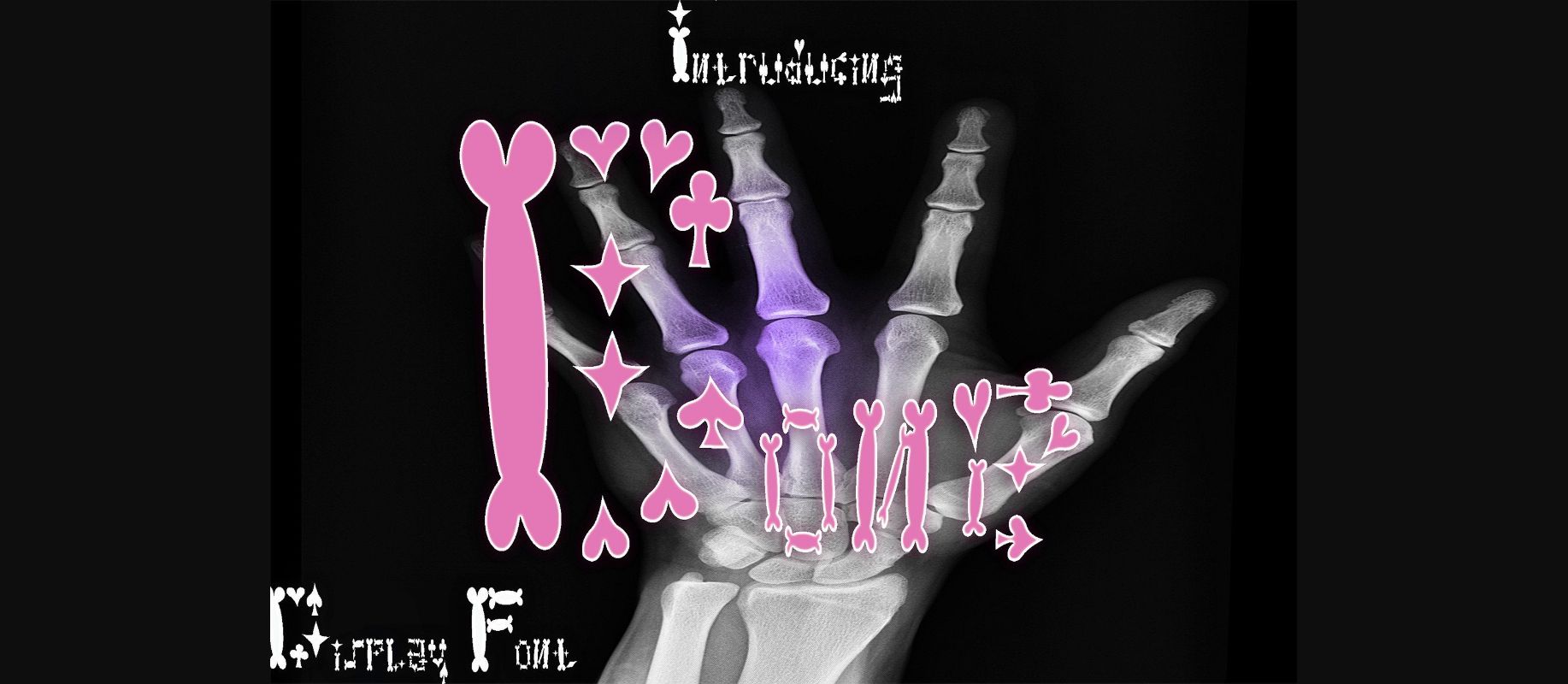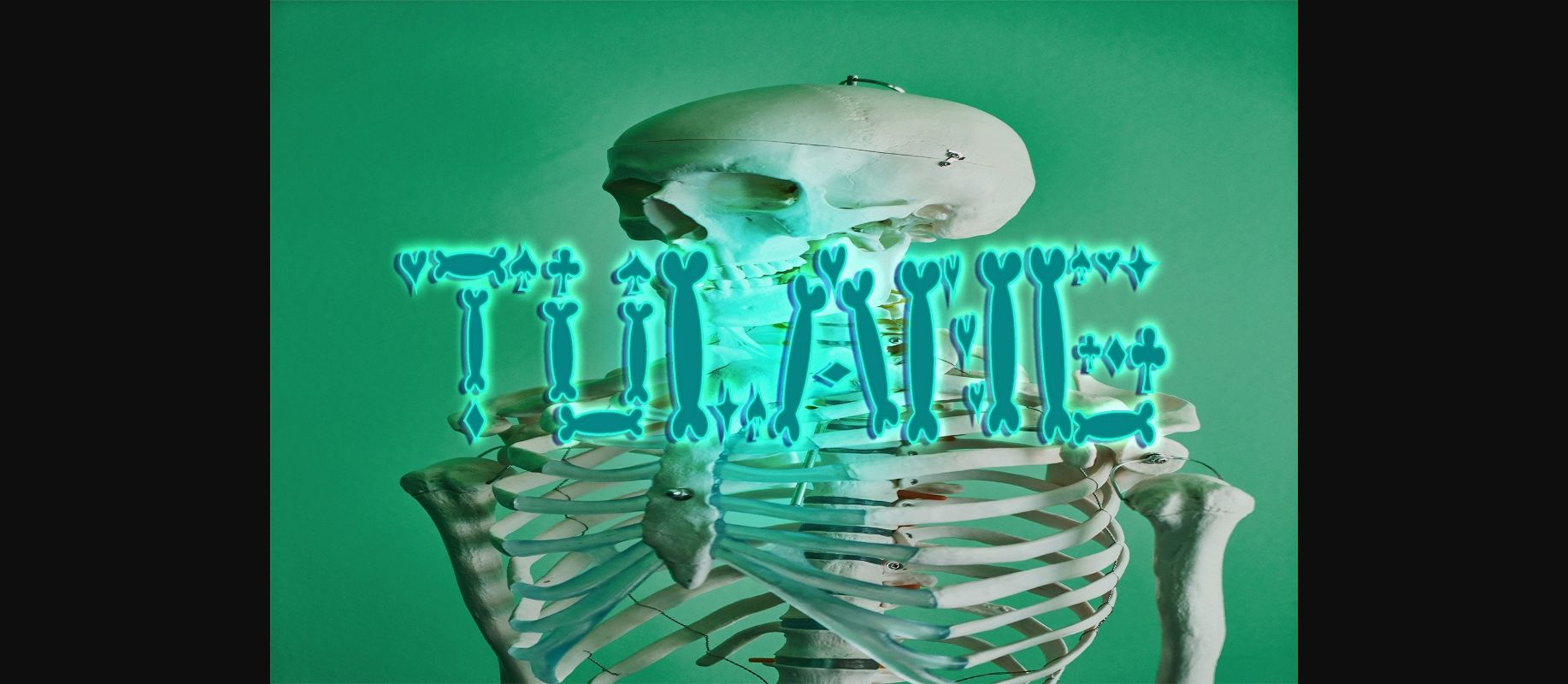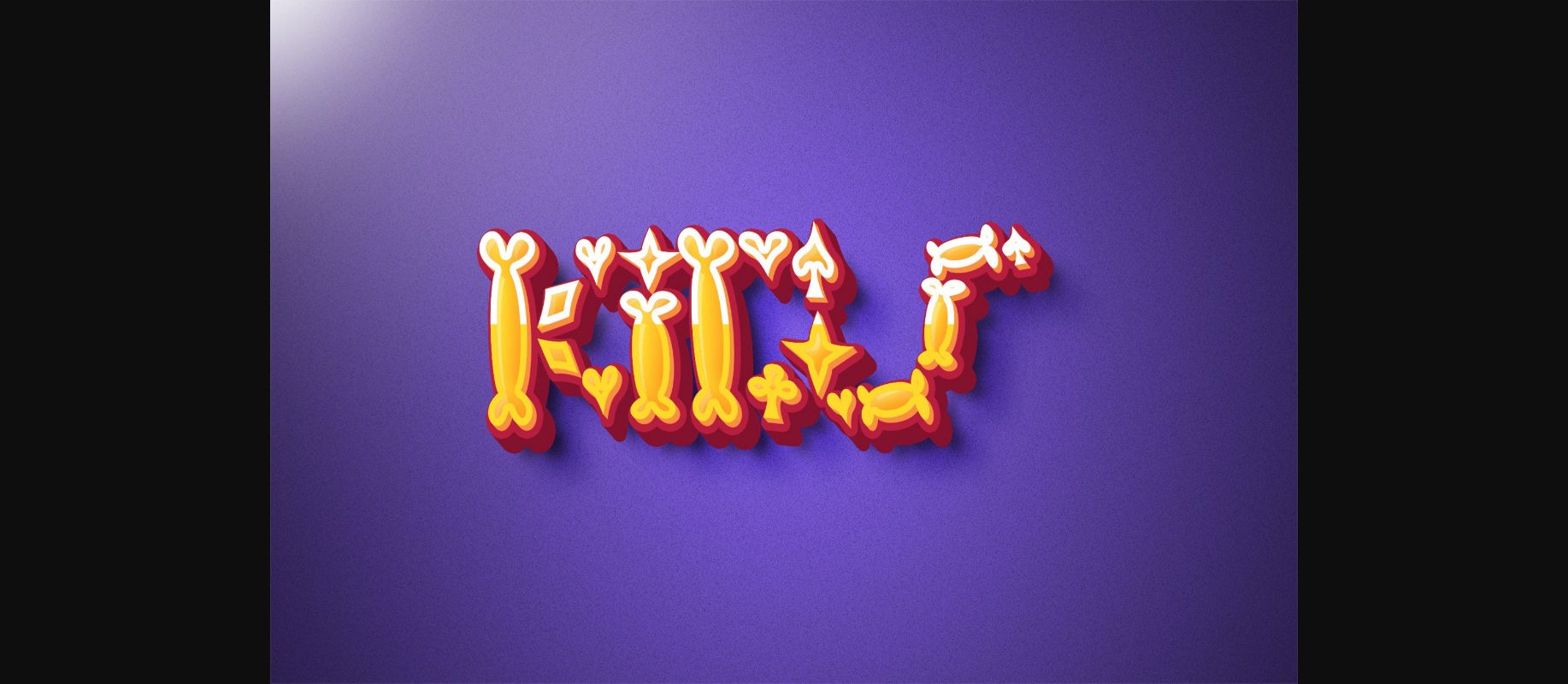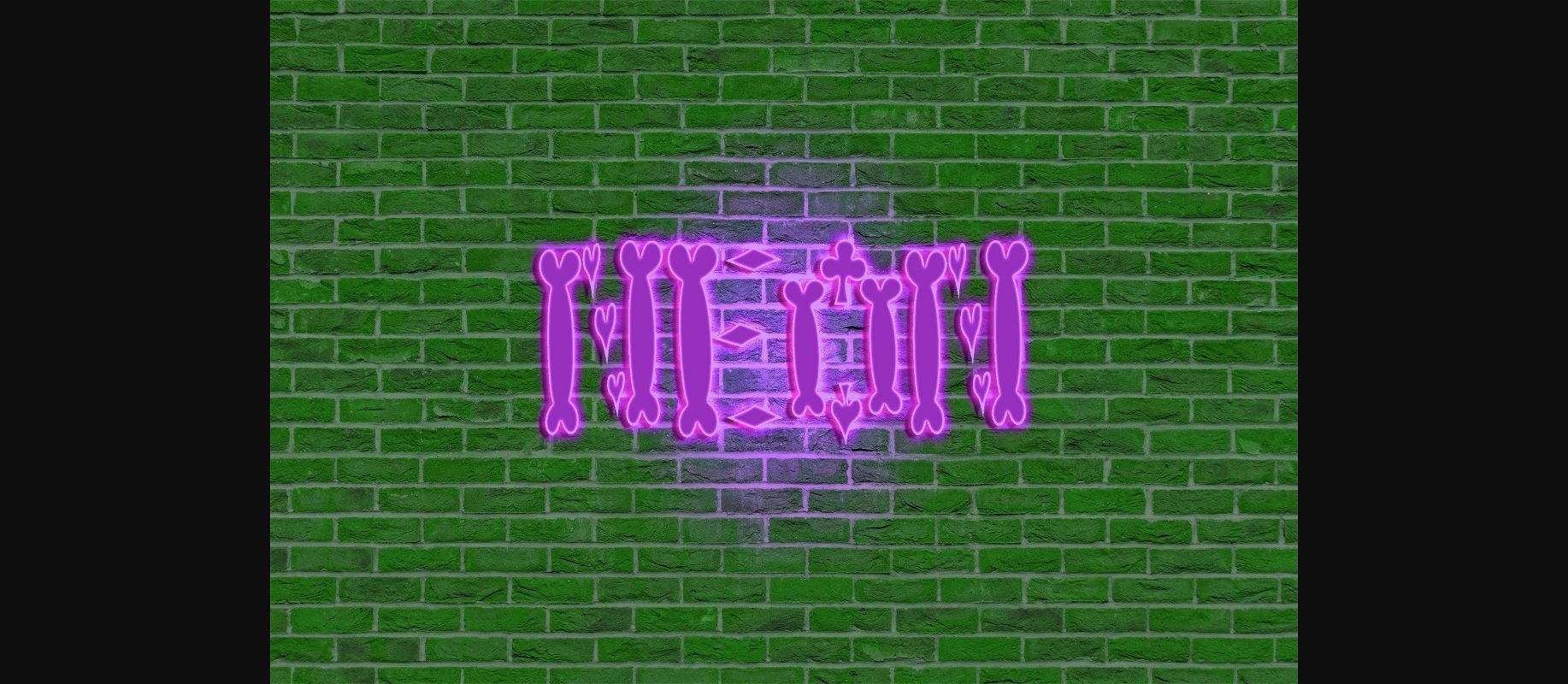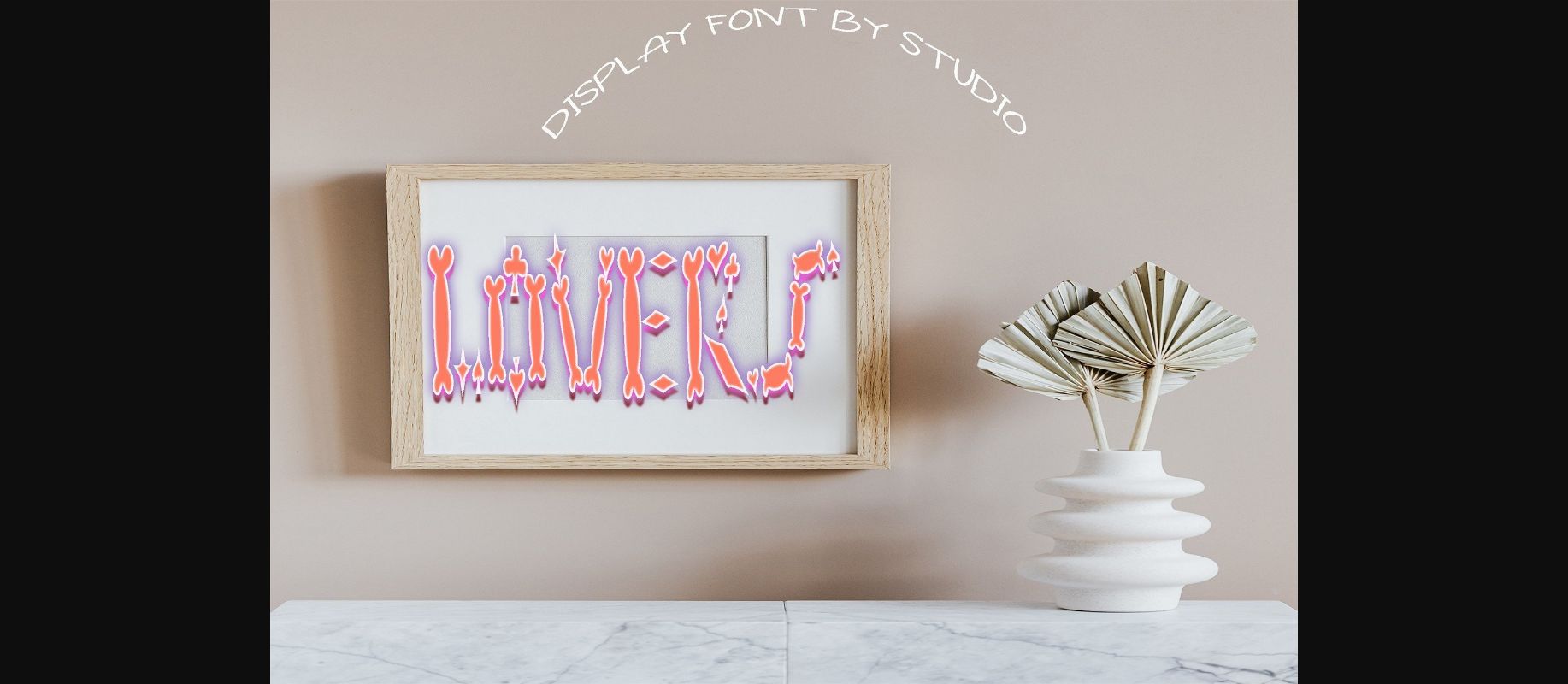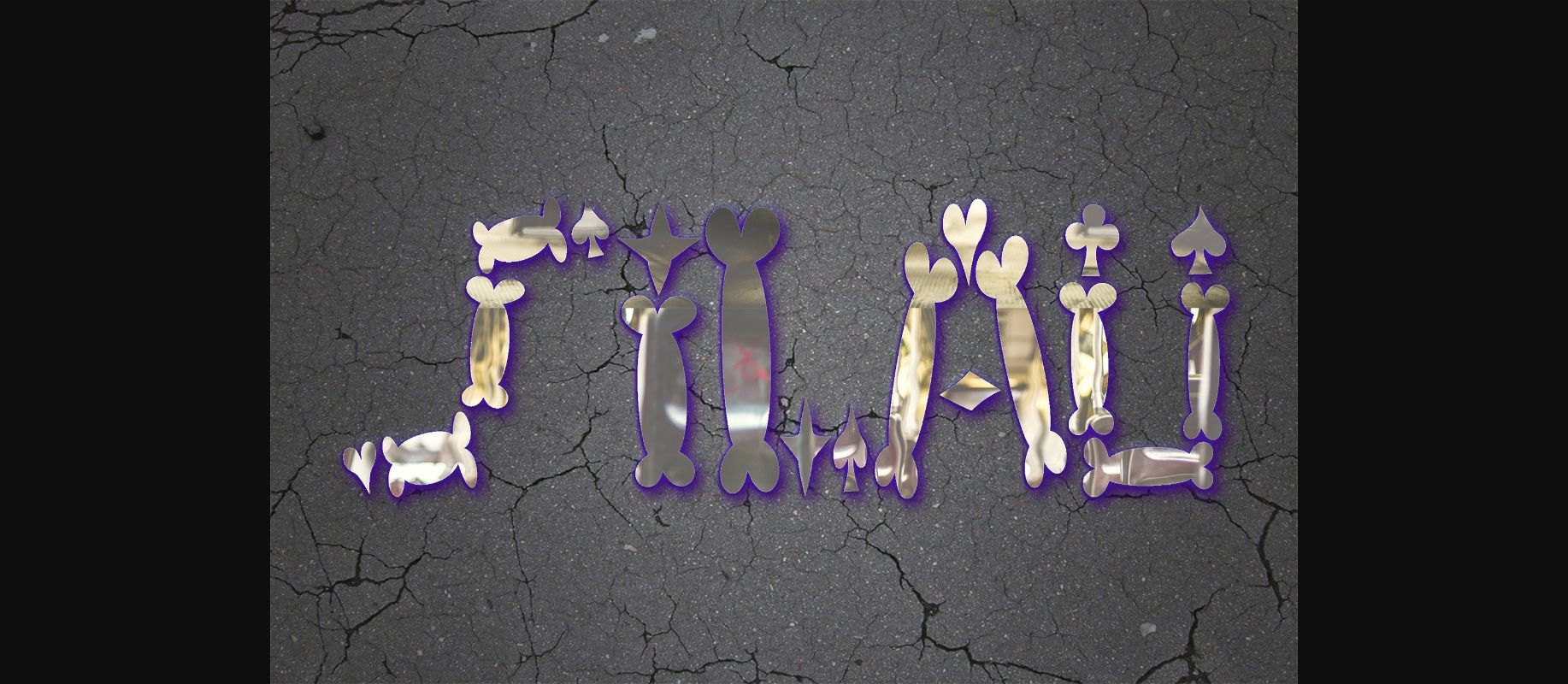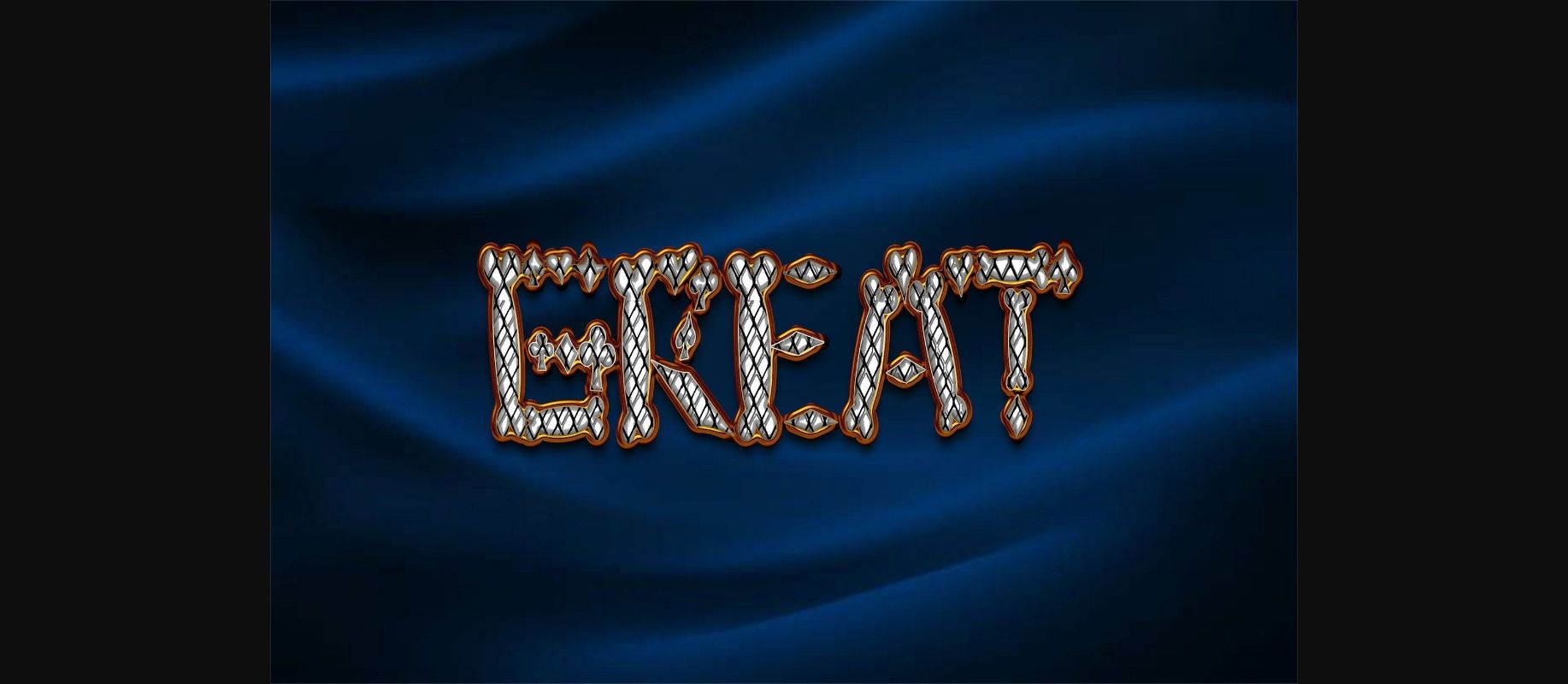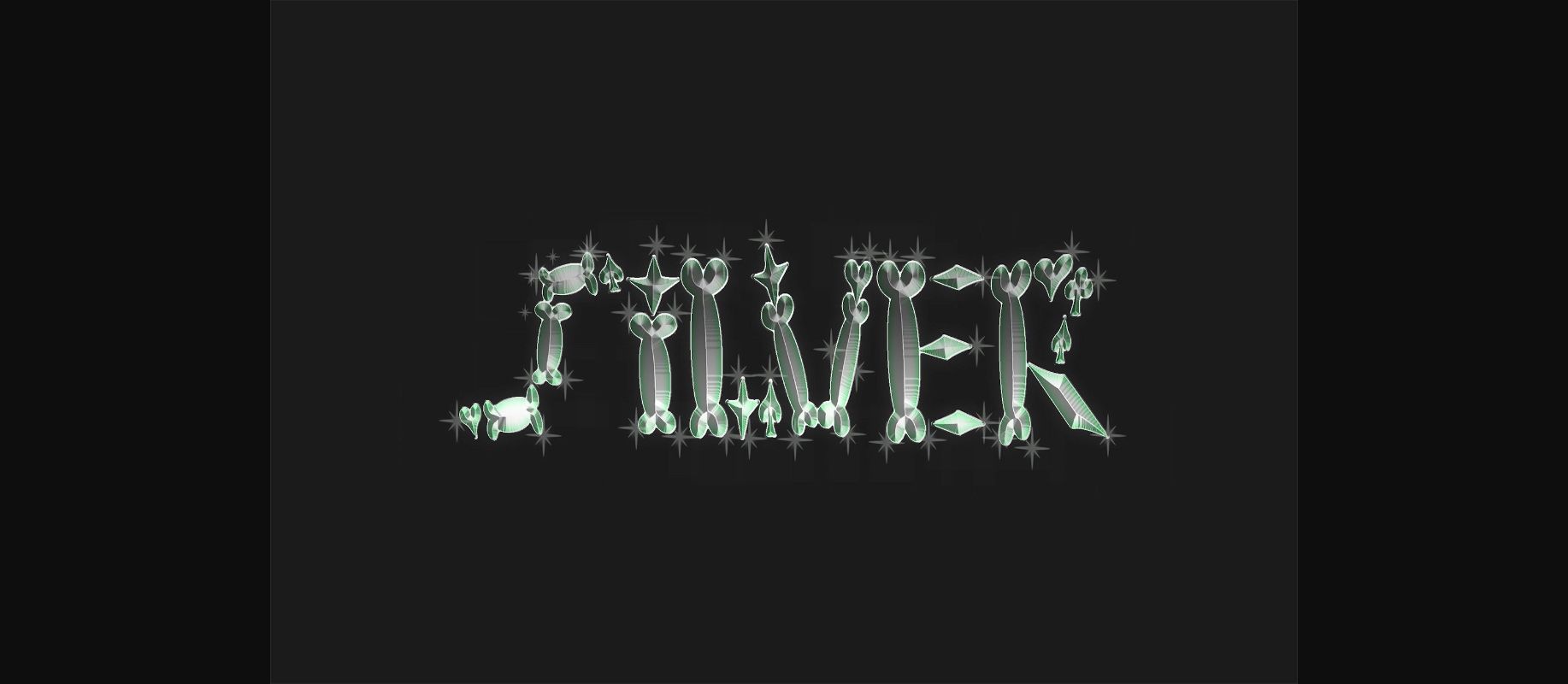
HomeDecorative FontsBone Font Decorative Fonts Bone Font FacebookXPinterestWhatsApp 1 of 10 ... Bone Font Poster 2... Bone Font Poster 3... Bone Font Poster 4... Bone Font Poster 5... Bone Font Poster 6... Bone Font Poster 7... Bone Font Poster 8... Bone Font Poster 9... Bone Font Poster 10... About Bone Font Bone is a quirky decorative font made from bones and playing card symbols. This fun twist will bring a little magic and mystery into your designs. DOWNLOAD NOW People also explored Johannesburg Font Sunday Grovy Font Niken Bold Script Kinosy Font Angelina Font Marshena Font Cheetah Font Canada Font Chistodella Font 320 0 TagsBoneBone Font Previous articleOn Fire FontNext articleSeyolla Font LEAVE A REPLY Cancel reply Comment: Please enter your comment! Name:* Please enter your name here Email:* You have entered an incorrect email address! Please enter your email address here Website: Save my name, email, and website in this browser for the next time I comment. Personal Use Free Bitcrusher Condensed Bold Personal Use Free Read more about this font Knucklehead Personal Use Free Read more about this font Rookie Mastering Personal Use Free Read more about this font BD TinyFont Personal Use Free Read more about this font BLOG Transform Your Website: Elevate Your Typography with 7 Best Web Font Generators Are you ready to transform your website's typography from ordinary to extraordinary? Great! Today, we're diving into the world of web font generators, which... The 10 Best Handwriting Fonts to Add Personality to Your Designs Top 7 Google Fonts Alternatives for Faster and Privacy-Friendly Web Design (2025) How to Install and Use Fonts on Windows, macOS, and Web Projects